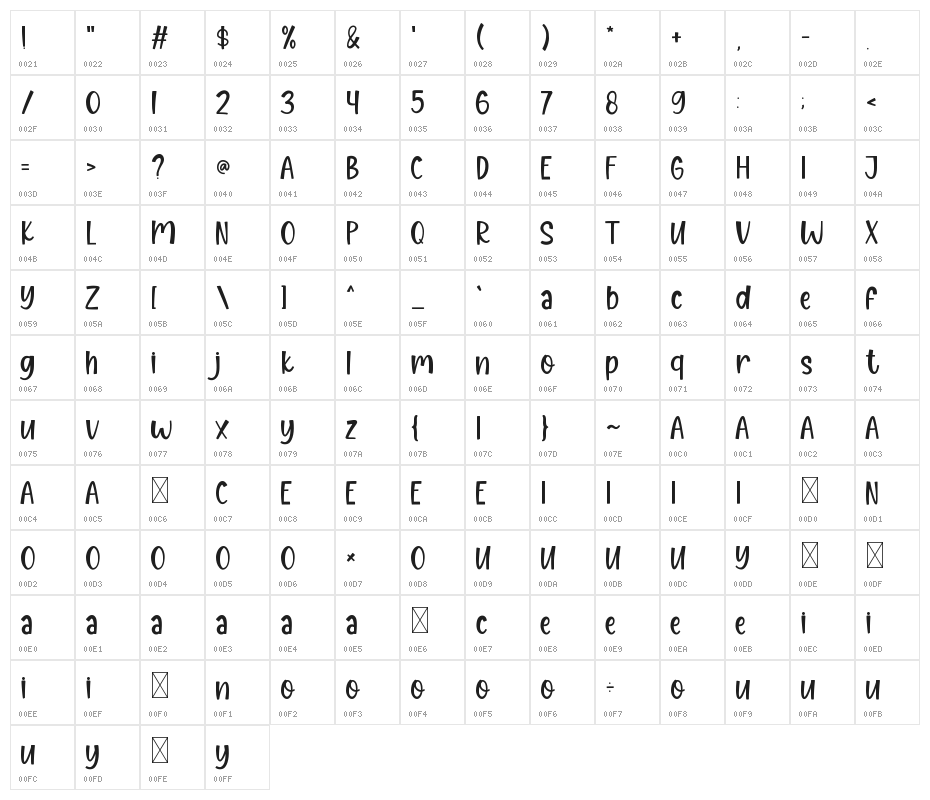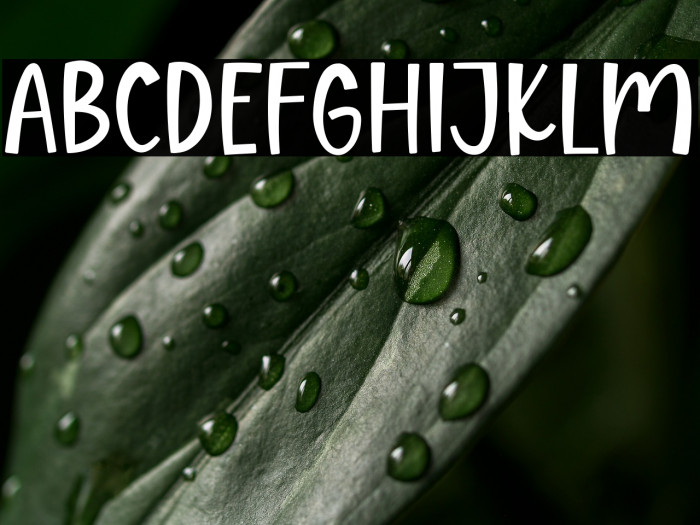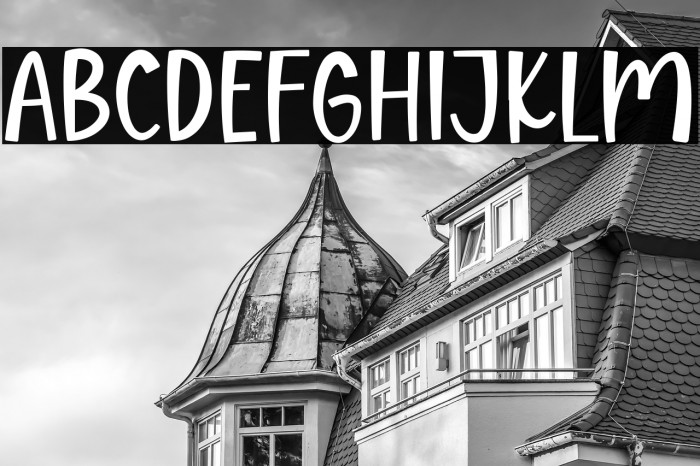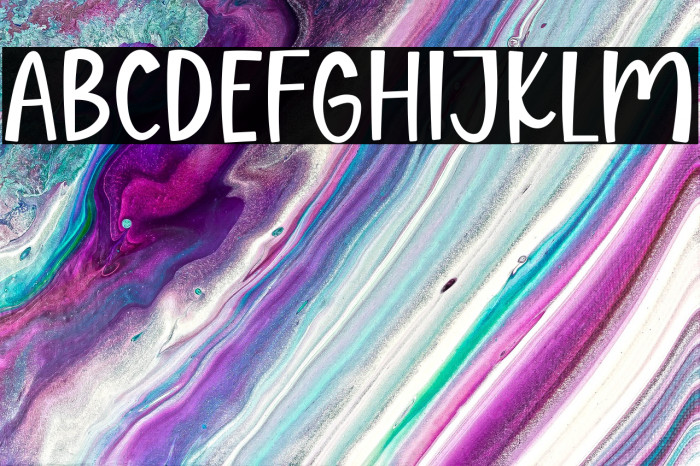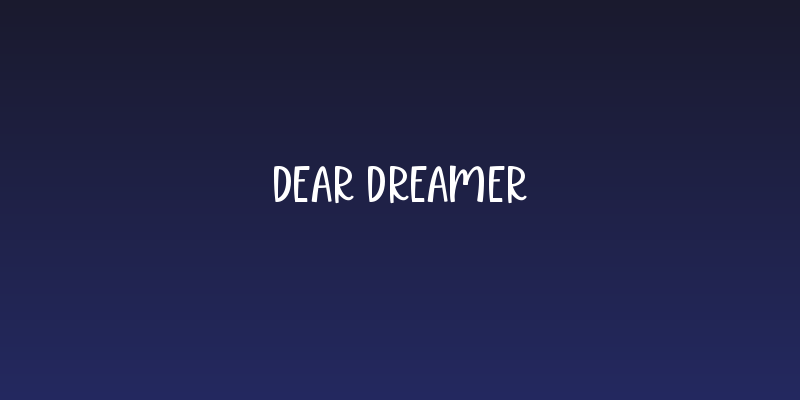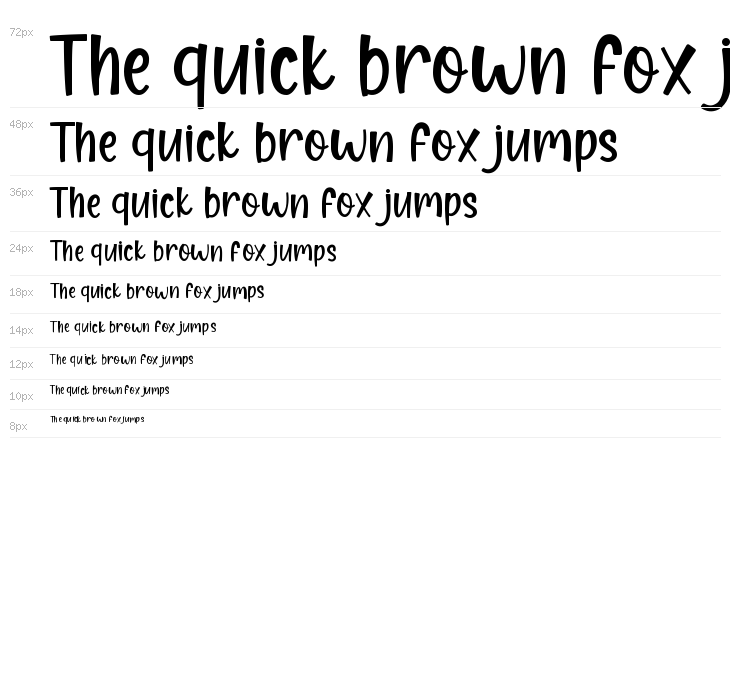
Dear Dreamer Font
Dear Dreamer Description
This font features a playful and whimsical design, characterized by its rounded and slightly irregular letterforms. The uppercase letters are bold and prominent, while the lowercase letters maintain a consistent flow with a touch of casual elegance. The numbers and special characters are crafted to match the overall style, adding to the font's cohesive appearance. The strokes are moderately thick, providing a balanced contrast that enhances readability while maintaining a fun and informal aesthetic. This font is ideal for projects that require a friendly and approachable look, such as children's books, greeting cards, or playful branding.
| Proposed Projects | Children's books, greeting cards, playful branding, casual invitations. |